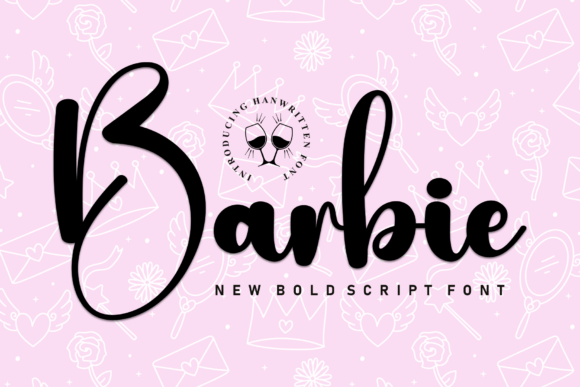
The Perfect Blend of Elegance and Casualness: Unleashing the Power of Barbie Font
You know that moment when you’re brainstorming ideas for your next design project, and suddenly, a spark of creativity hits you? Maybe it’s a combination of colors, a quirky font, or a unique texture that sets your imagination ablaze. For many designers, this spark often comes from discovering the perfect font to convey their message. Enter Barbie Font – a handwritten gem that exudes a relaxed, sporty vibe, making it perfect for branding, logos, and more.
With its luxurious and elegant feel, yet still casual and approachable, Barbie Font is a valuable addition to any designer’s toolkit. Whether you’re crafting wedding supplies, greeting cards, or marketing promotions, this font is sure to elevate your designs to the next level. Its versatility and unique charm make it an essential element for fashion, lookbooks, and any project where you want to convey a sense of high-end style without sacrificing approachability.
Key Features of Barbie Font
- Unique Characteristics: The Barbie font features a distinctive, playful, and feminine style with rounded edges and a cursive flair, making it suitable for designs targeting a young audience.
Barbie Font Review
Overall, the Barbie Font has some great qualities that make it a fun and playful addition to any design project. ✨ One of its strongest points is its versatility – it can be used for a variety of projects, from children’s books to fashion branding.
It has a range of weights, from thin to bold, which makes it easy to customize and create different visual effects.
The font is highly legible, even at small sizes, making it perfect for use in digital media.
It’s a great choice for designers who want to add a touch of whimsy and femininity to their designs.
However, the Barbie Font also has some limitations that may impact its usability in certain projects. ⚠️ For example:
The font may not be suitable for more serious or professional projects, as it can come across as too playful or juvenile.
It may not be as effective for use in body text, as it can be a bit too ornate and distracting.
The font may require additional styling to make it work well in certain contexts.
Overall, I think the Barbie Font is a great choice for designers who want to add a touch of fun and personality to their designs. While it may have some limitations, it’s a versatile and highly legible font that can be used in a variety of projects.
Tips for Getting the Most Out of the “Barbie Font”
Here are some tips to help you get the most out of the “Barbie Font”:
- Use the font for creative and playful designs
- Pair the font with bold and bright colors for maximum visual impact
- Experiment with different font sizes and styles to add depth and interest to your design
The “Barbie Font” is perfect for:
- Children’s book covers and illustrations
- Toy and product packaging
- Social media posts and ads targeting young audiences